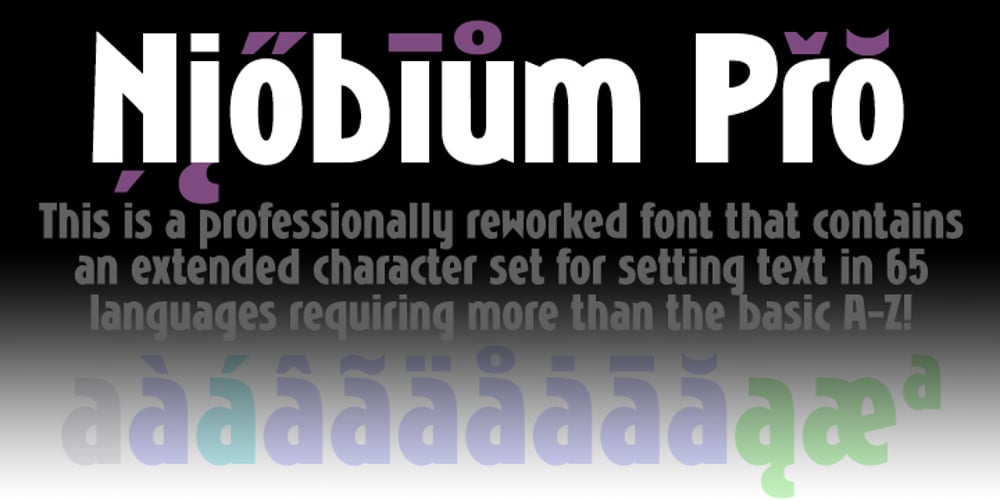
Niobium Pro
Niobium Pro font
Niobium Pro Font Family was designed by Roger S. Nelsson, Levente Halmos and published by CheapProFonts. Niobium Pro contains 1 styles and family package options. This font has been used for signage and wayfinding in the new Mbombela Stadium built for the FIFA World Cup 2010 – and it looks strangely appropriate there: the font has a certain hand-painted, relaxed charm so fitting of the south African culture. Interesting and bold choice of the architects. ๐Ÿ™‚ Anyway, the font has now been updated with our usual multilingual glyphset, and is ready to use around the world by soccer fans and typo fans alike. ALL fonts from CheapProFonts have very extensive language support: They contain some unusual diacritic letters (some of which are contained in the Latin Extended-B Unicode block) supporting: Cornish, Filipino (Tagalog), Guarani, Luxembourgian, Malagasy, Romanian, Ulithian and Welsh. They also contain all glyphs in the Latin Extended-A Unicode block (which among others cover the Central European and Baltic areas) supporting: Afrikaans, Belarusian (Lacinka), Bosnian, Catalan, Chichewa, Croatian, Czech, Dutch, Esperanto, Greenlandic, Hungarian, Kashubian, Kurdish (Kurmanji), Latvian, Lithuanian, Maltese, Maori, Polish, Saami (Inari), Saami (North), Serbian (latin), Slovak(ian), Slovene, Sorbian (Lower), Sorbian (Upper), Turkish and Turkmen. And they of course contain all the usual “western” glyphs supporting: Albanian, Basque, Breton, Chamorro, Danish, Estonian, Faroese, Finnish, French, Frisian, Galican, German, Icelandic, Indonesian, Irish (Gaelic), Italian, Northern Sotho, Norwegian, Occitan, Portuguese, Rhaeto-Romance, Sami (Lule), Sami (South), Scots (Gaelic), Spanish, Swedish, Tswana, Walloon and Yapese.